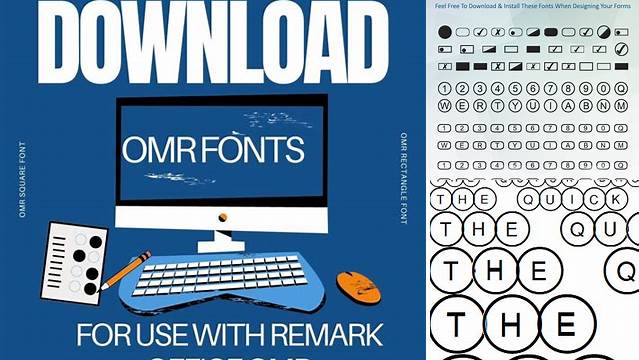
Hey guys! Ever needed to create OMR sheets using MS Word 2010 and found yourself scratching your head about the right font? Well, you've landed in the perfect spot! In this comprehensive guide, we're going to dive deep into the world of OMR (Optical Mark Recognition) fonts, specifically for MS Word 2010. We’ll explore what OMR fonts are, why you might need them, where to find them for free, and how to use them effectively. So, buckle up and let’s get started!
What are OMR Fonts and Why Do You Need Them?
First off, let's break down the basics. OMR, or Optical Mark Recognition, is a technology used to read marks made in specified positions on a form. Think of those standardized test answer sheets – the ones where you fill in the bubbles with a pencil. That’s OMR in action! To create these forms digitally, you need special fonts that can accurately represent the bubbles or boxes that are meant to be marked. OMR fonts are designed specifically for this purpose. They include characters that mimic these shapes, making it easier to design OMR sheets using software like MS Word 2010.
Now, why might you need an OMR font? There are several scenarios where these fonts come in handy. If you're an educator, you might want to create quizzes or exams that can be easily graded using OMR technology. If you work in research, you might need to design surveys or questionnaires. Even businesses can use OMR forms for data collection. Using MS Word 2010 with the right OMR font allows you to create professional-looking forms without needing specialized software. Plus, it’s a cost-effective solution, especially if you’re already familiar with Word.
The importance of using the correct OMR font cannot be overstated. Imagine using a regular font to create your OMR sheet – the OMR reader wouldn't be able to recognize the marks properly, leading to inaccurate results. This could mean incorrect grades, skewed survey data, or flawed business decisions. Therefore, having a reliable OMR font is crucial for any project involving OMR technology. When choosing an OMR font, ensure it is compatible with your OMR reader or software. Different readers might have specific requirements, so always check the documentation or guidelines provided by the manufacturer. Also, consider the clarity and readability of the font. A good OMR font should not only be recognizable by the machine but also easily distinguishable for the person filling out the form. This will help reduce errors and ensure the accuracy of your data.